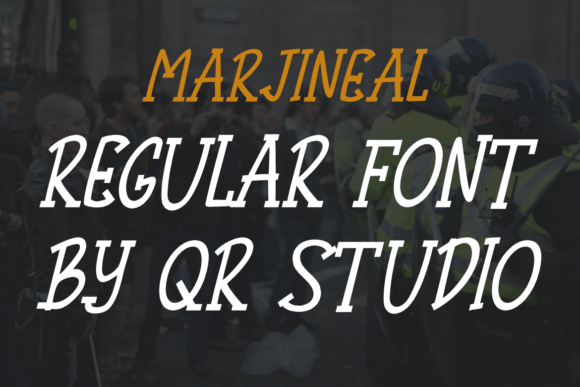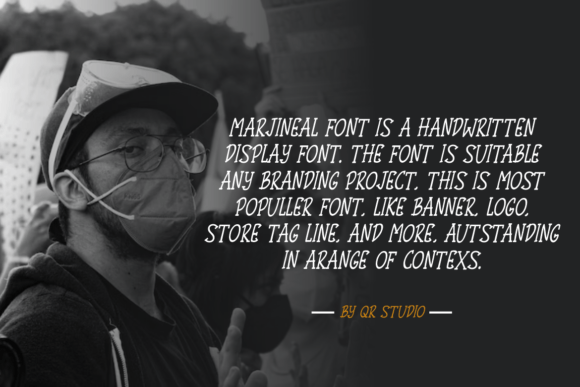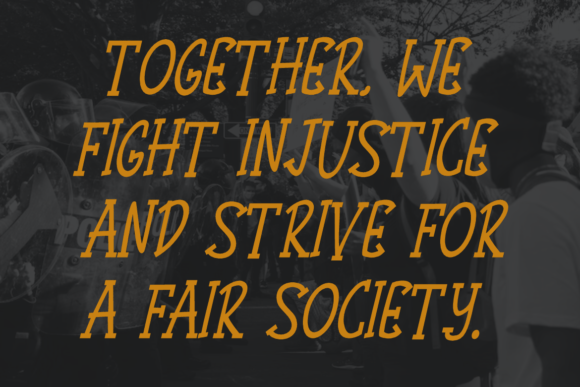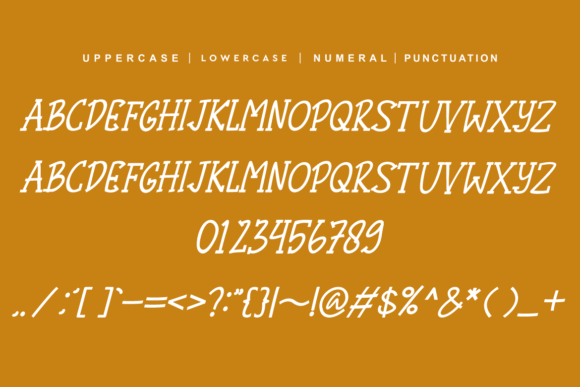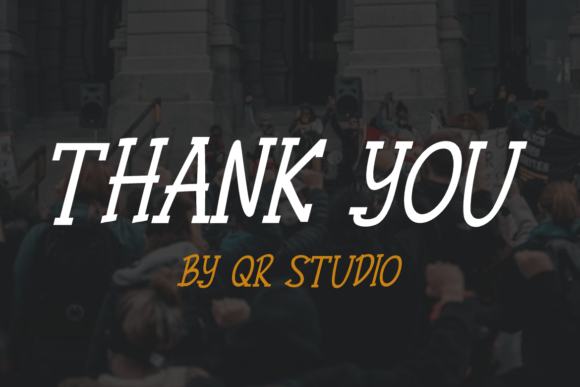
Introduction to Marjineal Font
Remember that moment when a simple scribble turned into a beautiful masterpiece? As designers, we’ve all been there – a spark of creativity can ignite a world of possibilities. The Marjineal Font is one such spark that can elevate your creative project to new heights. With its bold and authentic handwritten style, this font is perfect for branding projects, logos, kid-related designs, posters, greeting cards, sports, and much more.
As a valuable design resource, the Marjineal Font offers a high-quality solution for designers seeking a unique touch. Whether you’re working on a free download or a paid project, this font’s versatility makes it an ideal choice. Plus, with its transparent background, you can easily layer it with other design elements to create a stunning visual effect.
Key Features of Marjineal Font
- High-quality, professional font design ideal for creative projects and design resources.
- Features a transparent background, allowing for seamless integration with images and other design elements.
- Includes a wide range of characters, including uppercase and lowercase letters, numbers, and special characters, making it a versatile design resource.
- Unique, handcrafted style with a modern twist, setting it apart from other fonts and making it a great choice for designers looking to add some personality to their work.
- Perfect for use in a variety of creative projects, from logos and branding to posters and brochures.
Honest Review: Marjineal Font
I recently came across the Marjineal Font and I must say it’s a great addition to any designer’s toolkit. As a design resource, it’s a free download that can elevate your creative project to the next level.
What works well is the high quality of the font, with smooth lines and a clear, legible design. It’s perfect for use in a variety of contexts, from headings to body text. I also appreciate the transparent background, which makes it easy to overlay on images or other design elements.
- ✨ High-quality design with smooth lines and clear typography
- ✨ Transparent background for easy overlaying
However, there are some limitations to consider. The font family is relatively small, so you may find yourself wanting more variations to suit different design needs. Additionally, the font may not be as versatile as some other options on the market.
Overall, I’m impressed with the Marjineal Font and would recommend it to designers looking for a reliable, high-quality font for their creative projects.
- ⚠️ Limited font family size
- ⚠️ May not be as versatile as other options
Tips for Getting the Most Out of Marjineal Font
For the best results, use Marjineal Font on a transparent background and pair it with high-quality images or graphics. This will allow the font to stand out and add a professional touch to your design. You can also use Marjineal Font as a free download for your creative project, and it can be a valuable design resource for any project.
Marjineal Font is a versatile font that can be used for a variety of creative projects, including logos, branding, and marketing materials. It’s also a great choice for creating eye-catching social media graphics or posters. Whether you’re working on a free download or a paid project, Marjineal Font is a high-quality design resource that can help you achieve your design goals.